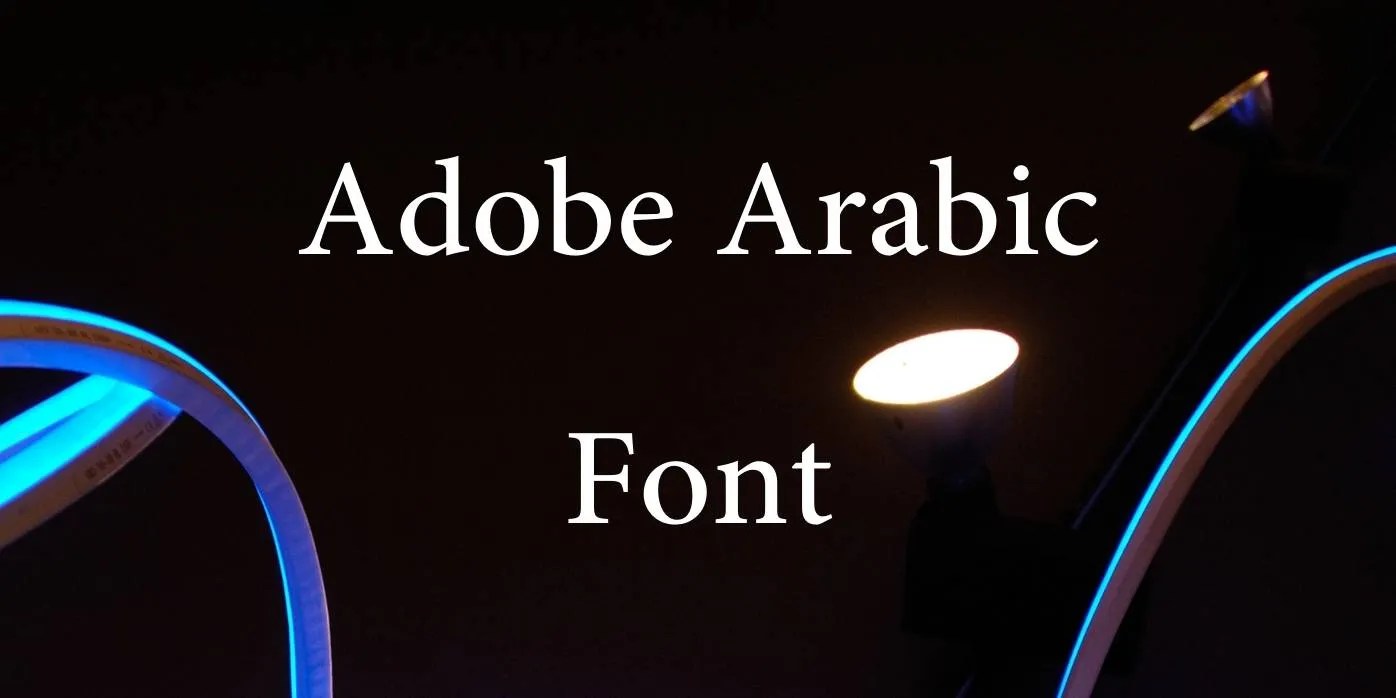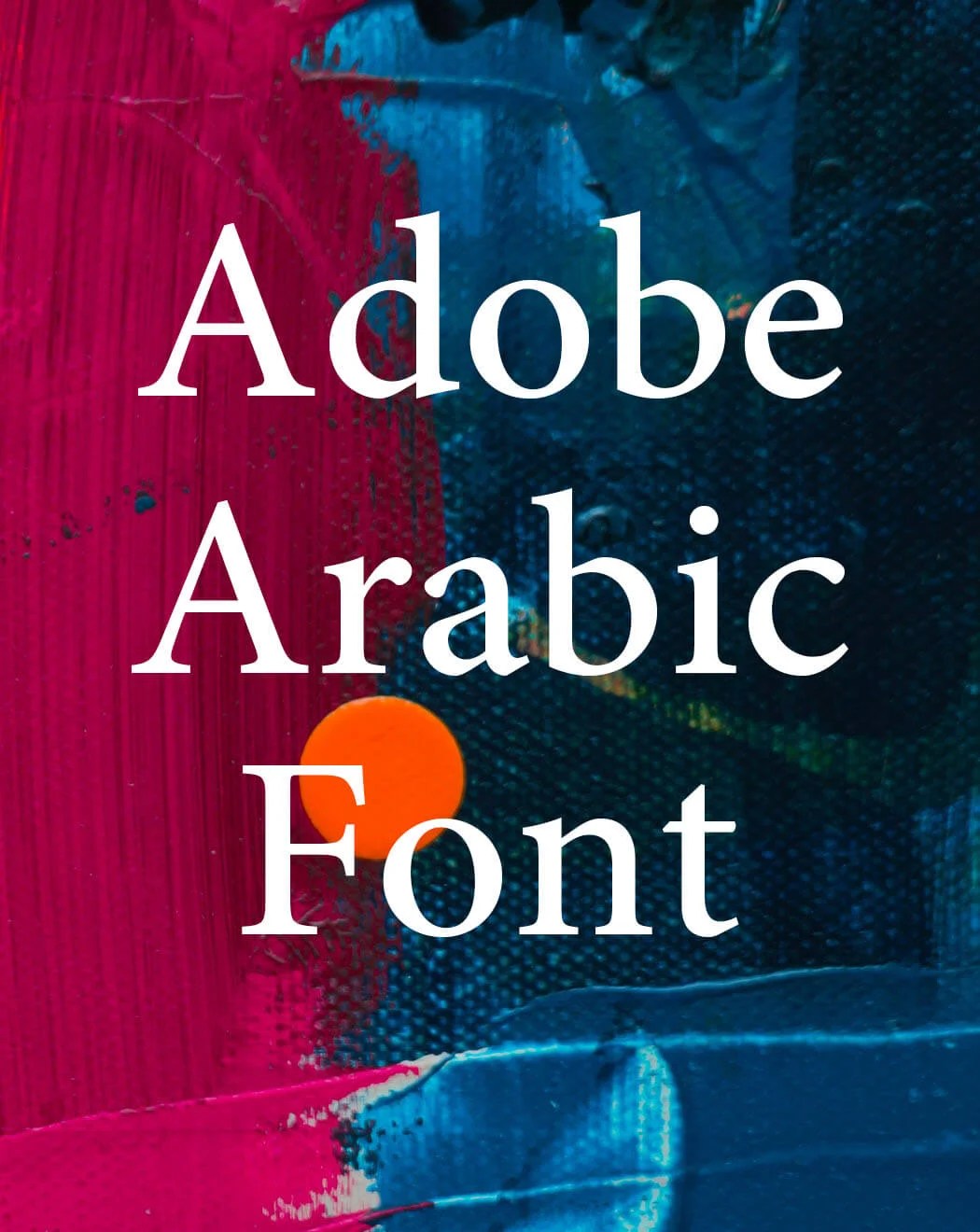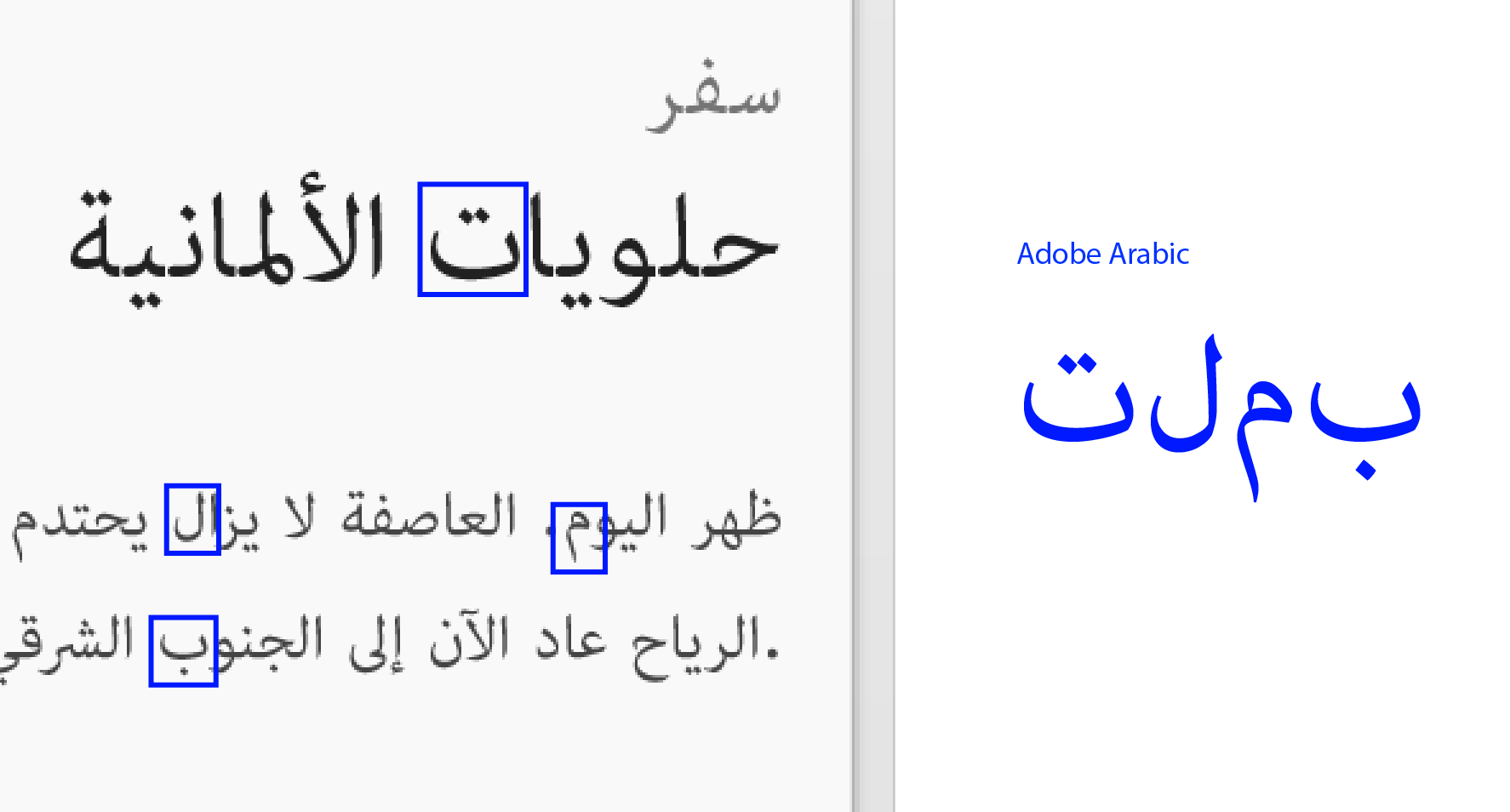
Font Arabic Adobe . Adobe arabic regular is a regular truetype font. Search the adobe fonts library by name, foundry, designer, or keyword—or upload an image to match your type sample with visual search. Adobe arabic font is the default font if you choose to install the middle eastern version of adobe cc. A community expert answers that it is allowed, but advises to. A user asks if adobe arabic font is free for commercial use in a book. 43 users have given the font a rating of 4.37 out of 5. A typeface with 6 styles, available from adobe fonts for sync and web use. This font shows up by default since adobe released its first creative cloud back in 2013. Explore interface arabic available at adobe fonts. It has been downloaded 45561 times. Adobe arabic is a sophisticated and experimental font designed by robert slimbach and tim holloway for adobe originals. The adobe arabic shin font, designed by adobe in collaboration with shahin sabbaghi, stands out with its bold and wide appearance, featuring flowing terminals that add a.
Explore interface arabic available at adobe fonts. Adobe arabic font is the default font if you choose to install the middle eastern version of adobe cc. Adobe arabic regular is a regular truetype font. This font shows up by default since adobe released its first creative cloud back in 2013. Adobe arabic is a sophisticated and experimental font designed by robert slimbach and tim holloway for adobe originals. 43 users have given the font a rating of 4.37 out of 5. A community expert answers that it is allowed, but advises to. A typeface with 6 styles, available from adobe fonts for sync and web use. It has been downloaded 45561 times. The adobe arabic shin font, designed by adobe in collaboration with shahin sabbaghi, stands out with its bold and wide appearance, featuring flowing terminals that add a.
Font Arabic Adobe Adobe arabic is a sophisticated and experimental font designed by robert slimbach and tim holloway for adobe originals. This font shows up by default since adobe released its first creative cloud back in 2013. 43 users have given the font a rating of 4.37 out of 5. Adobe arabic regular is a regular truetype font. A community expert answers that it is allowed, but advises to. A typeface with 6 styles, available from adobe fonts for sync and web use. The adobe arabic shin font, designed by adobe in collaboration with shahin sabbaghi, stands out with its bold and wide appearance, featuring flowing terminals that add a. It has been downloaded 45561 times. A user asks if adobe arabic font is free for commercial use in a book. Search the adobe fonts library by name, foundry, designer, or keyword—or upload an image to match your type sample with visual search. Adobe arabic is a sophisticated and experimental font designed by robert slimbach and tim holloway for adobe originals. Adobe arabic font is the default font if you choose to install the middle eastern version of adobe cc. Explore interface arabic available at adobe fonts.
Font Arabic Adobe 43 users have given the font a rating of 4.37 out of 5. This font shows up by default since adobe released its first creative cloud back in 2013. Search the adobe fonts library by name, foundry, designer, or keyword—or upload an image to match your type sample with visual search. A user asks if adobe arabic font is free. Font Arabic Adobe.
Mawjah Arabic Colour Font arabic Calligraphy Font, Islamic Calligraphy Font Arabic Adobe Adobe arabic font is the default font if you choose to install the middle eastern version of adobe cc. A user asks if adobe arabic font is free for commercial use in a book. Explore interface arabic available at adobe fonts. Adobe arabic is a sophisticated and experimental font designed by robert slimbach and tim holloway for adobe originals. 43. Font Arabic Adobe.
Font Arabic Adobe A user asks if adobe arabic font is free for commercial use in a book. Adobe arabic is a sophisticated and experimental font designed by robert slimbach and tim holloway for adobe originals. The adobe arabic shin font, designed by adobe in collaboration with shahin sabbaghi, stands out with its bold and wide appearance, featuring flowing terminals that add a.. Font Arabic Adobe.
Font Arabic Adobe It has been downloaded 45561 times. This font shows up by default since adobe released its first creative cloud back in 2013. Explore interface arabic available at adobe fonts. The adobe arabic shin font, designed by adobe in collaboration with shahin sabbaghi, stands out with its bold and wide appearance, featuring flowing terminals that add a. A typeface with 6. Font Arabic Adobe.
TS Studio Font Arabic & Latin Behance Font Arabic Adobe A user asks if adobe arabic font is free for commercial use in a book. Explore interface arabic available at adobe fonts. A typeface with 6 styles, available from adobe fonts for sync and web use. It has been downloaded 45561 times. Adobe arabic is a sophisticated and experimental font designed by robert slimbach and tim holloway for adobe originals.. Font Arabic Adobe.
Font Arabic Adobe The adobe arabic shin font, designed by adobe in collaboration with shahin sabbaghi, stands out with its bold and wide appearance, featuring flowing terminals that add a. A typeface with 6 styles, available from adobe fonts for sync and web use. Adobe arabic font is the default font if you choose to install the middle eastern version of adobe cc.. Font Arabic Adobe.
Font Arabic Adobe A user asks if adobe arabic font is free for commercial use in a book. This font shows up by default since adobe released its first creative cloud back in 2013. A typeface with 6 styles, available from adobe fonts for sync and web use. Adobe arabic regular is a regular truetype font. Adobe arabic is a sophisticated and experimental. Font Arabic Adobe.
Font Arabic Adobe Search the adobe fonts library by name, foundry, designer, or keyword—or upload an image to match your type sample with visual search. Adobe arabic regular is a regular truetype font. Explore interface arabic available at adobe fonts. It has been downloaded 45561 times. Adobe arabic font is the default font if you choose to install the middle eastern version of. Font Arabic Adobe.
Font Arabic Adobe Explore interface arabic available at adobe fonts. Adobe arabic font is the default font if you choose to install the middle eastern version of adobe cc. 43 users have given the font a rating of 4.37 out of 5. A user asks if adobe arabic font is free for commercial use in a book. It has been downloaded 45561 times.. Font Arabic Adobe.
Font Arabic Adobe Adobe arabic is a sophisticated and experimental font designed by robert slimbach and tim holloway for adobe originals. This font shows up by default since adobe released its first creative cloud back in 2013. Search the adobe fonts library by name, foundry, designer, or keyword—or upload an image to match your type sample with visual search. Adobe arabic regular is. Font Arabic Adobe.